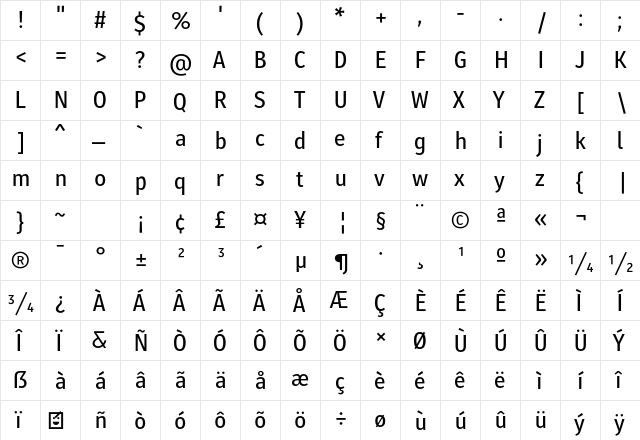
Molecula - Demo Semi Bold
| Foundry | Northeast Type Foundry |
| Designer | Erick Dahl |
Design Context for Molecula - Demo Typeface
Molecula - Demo is a composed and adaptable typeface that performs quietly and consistently across a wide range of design contexts. The heavy weight commands attention and anchors typographic hierarchies.